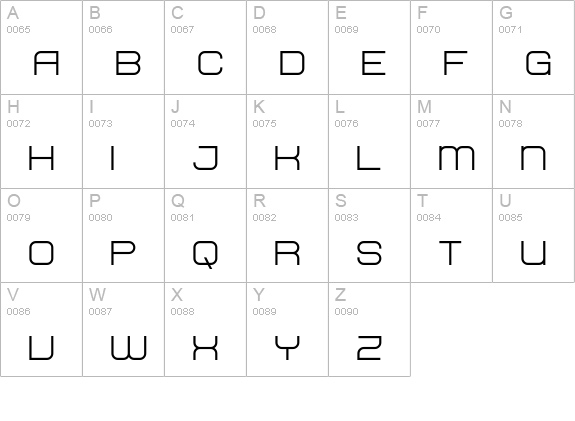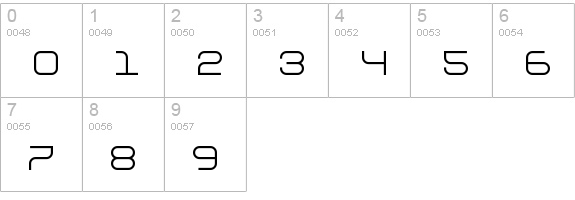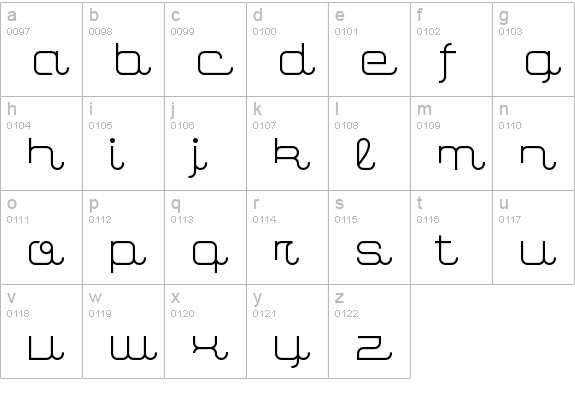
closeHookline Straight Font Details
Introducing the exquisite closeHookline Straight font, a modern and versatile typeface that effortlessly combines elegance with simplicity. This font features clean lines and a sophisticated aesthetic, making it ideal for a wide range of design projects. With its sleek and contemporary design, closeHookline Straight font is perfect for creating eye-catching logos, branding materials, invitations, posters, and much more. Its timeless appeal and legibility make it a must-have addition to any designer's toolkit. One of the best things about closeHookline Straight font is that it is available for free download at FontsMarket.com. This means that you can easily access this high-quality font without any cost, making it a valuable resource for both personal and commercial projects. Whether you're a seasoned designer looking for a fresh new font to add to your collection or a beginner searching for the perfect typeface to elevate your work, closeHookline Straight font is sure to impress with its versatility and style. Download it today and let your creativity shine with this stunning font!